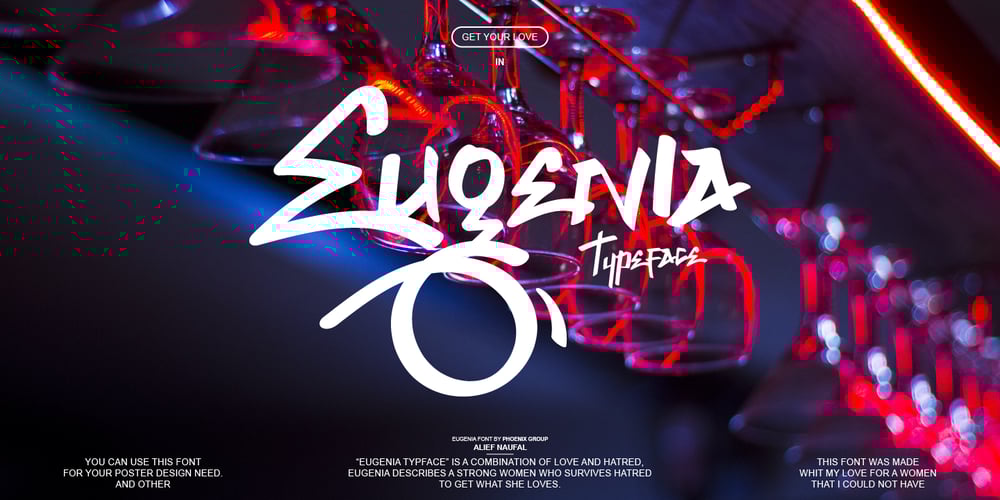
Eugenia Font Family was designed by Alif Naufal Muzakki and published by Phoenix Group. Eugenia contains 1 styles and family package options. Eugenia is a font for display and poster needs. Each stroke reflects the strong nature of a woman who hates what she loves. This font is suitable for posters with the theme of art and enthusiasm. The name Eugenia reflects the glory and the figure who likes to do good, we hope that people who use this font can make something that is good for others.